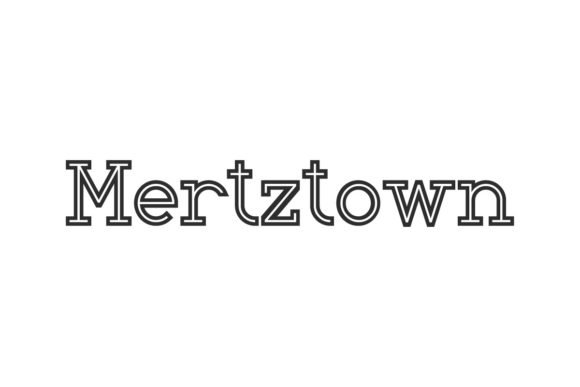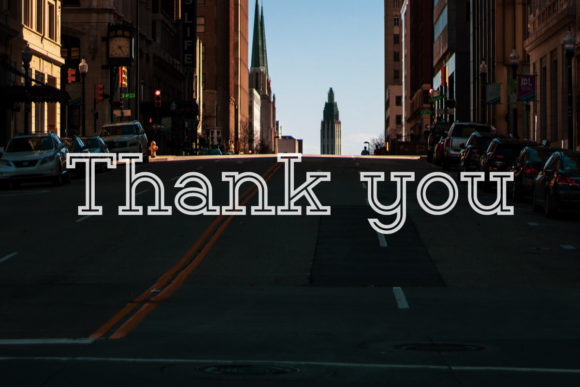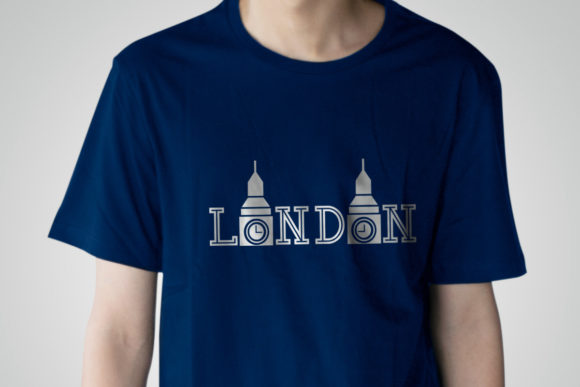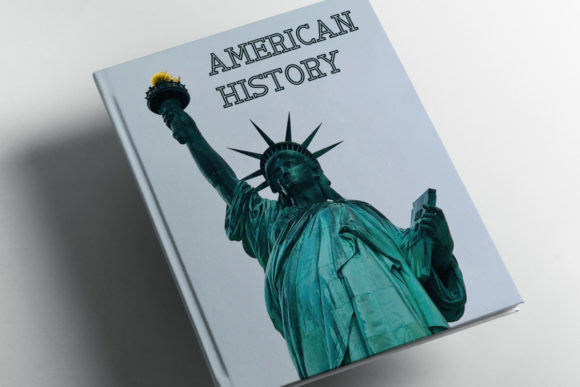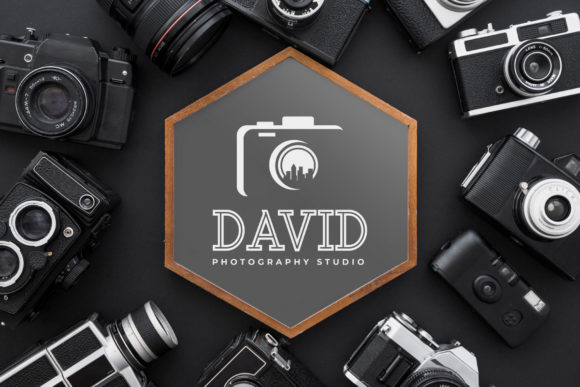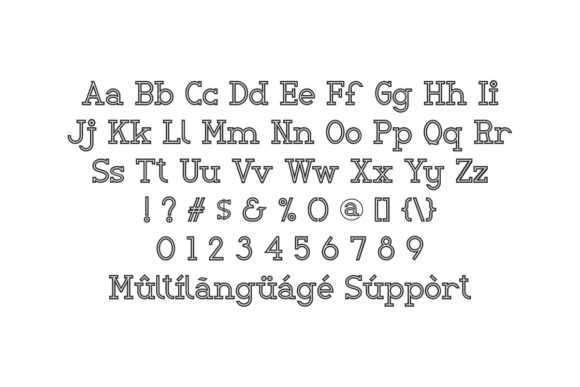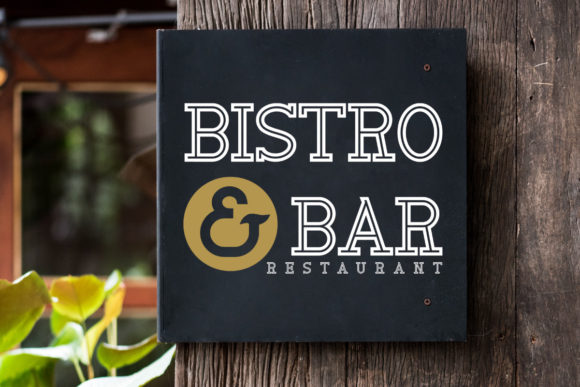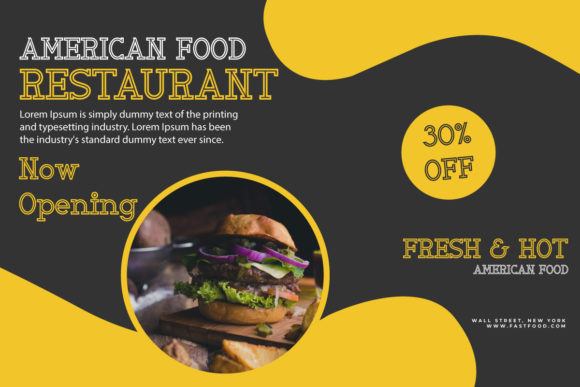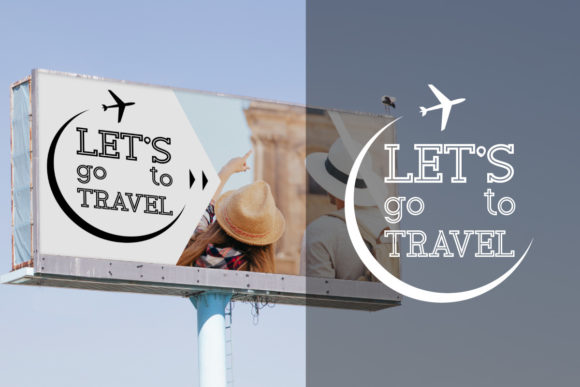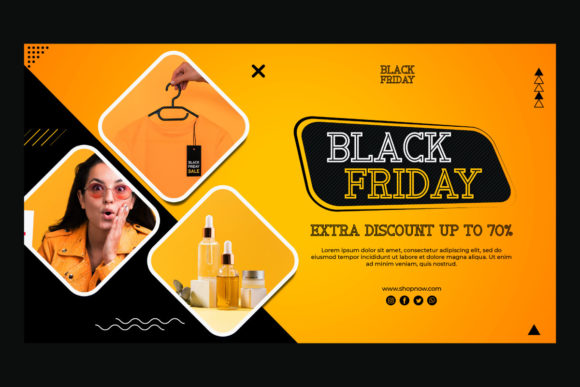
Mertztown
Mertztown: A Cool and Classic Slab Serif Font
Mertztown is a distinctive slab serif font that combines coolness with classic design elements. This versatile typeface is designed to enhance a wide range of casual and fun design projects, limited only by your imagination.
Key Features of Mertztown
• Cool Design: Offers a trendy and appealing look that resonates with modern design trends.
• Classic Style: Incorporates timeless elements for a balanced aesthetic.
• Slab Serif Structure: Features the characteristic thick, rectangular serifs typical of slab serif fonts.
• Versatile Application: Suitable for a wide range of casual and fun design ideas.
• Creative Potential: Designed to inspire and accommodate various imaginative concepts.
Ideal Uses for Mertztown
Mertztown’s unique characteristics make it particularly well-suited for:
• Casual branding and logo design
• Fun poster and advertisement layouts
• Social media graphics and content
• T-shirt and apparel designs
• Event invitations and promotional materials
• Blog headers and digital content
When incorporating Mertztown into your designs, consider these tips:
• Use for headlines or short blocks of text to showcase its cool and classic style
• Experiment with different sizes to highlight the font’s unique details
• Take advantage of its versatility across various casual and fun design projects
• Let your imagination run wild – Mertztown is designed to accommodate creative ideas
Mertztown is an excellent choice for designers looking to add a cool and classic slab serif font to their typographic toolkit. Its ability to enhance various casual and fun design projects makes it stand out in the world of typography. Whether you’re working on logo designs for trendy brands, creating layouts for social media content, or developing projects that require a touch of coolness with a classic twist, Mertztown offers the perfect blend of style and versatility.
Furthermore, Mertztown’s adaptability allows it to shine in various contexts. From vintage-inspired designs with a modern twist to more playful layouts that need a touch of classic charm, this font can elevate your projects. Its cool yet timeless style works particularly well in designs that require a fun and engaging mood.
In conclusion, Mertztown is a font that truly bridges the gap between cool modernity and classic design. Its ability to work well in both casual, relaxed projects and more creative layouts showcases its flexibility. For those looking to add a touch of cool classicism to their work, Mertztown can even enhance themed creations with its unique style. Remember, with Mertztown, the only limit is your imagination!